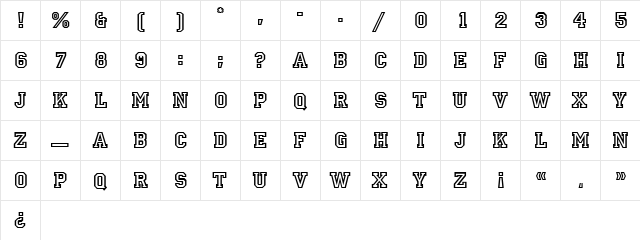
PT Letter Sweater Normal
Design Context for PT Letter Sweater Typeface
PT Letter Sweater is a composed and adaptable typeface that performs quietly and consistently across a wide range of design contexts.